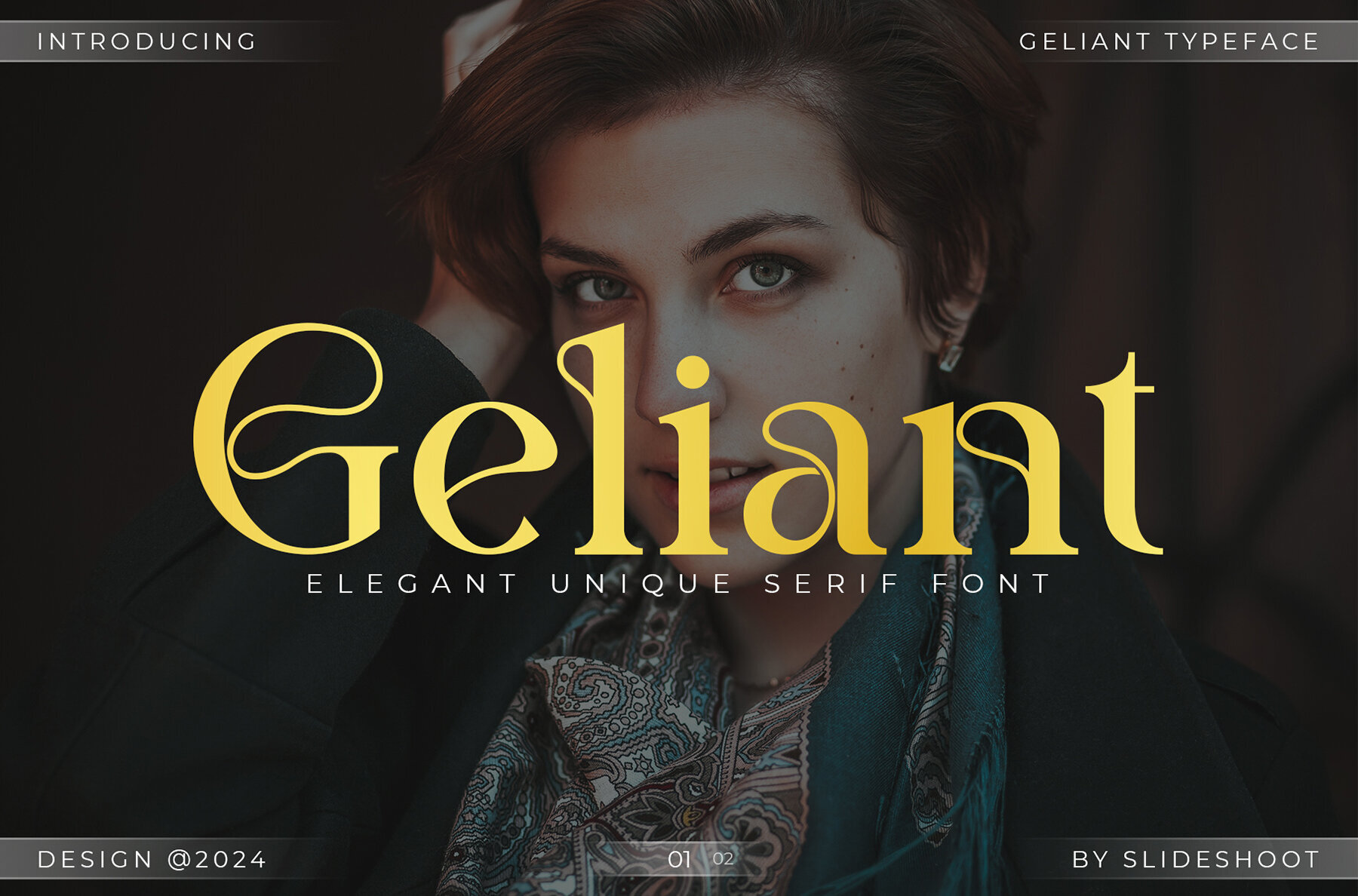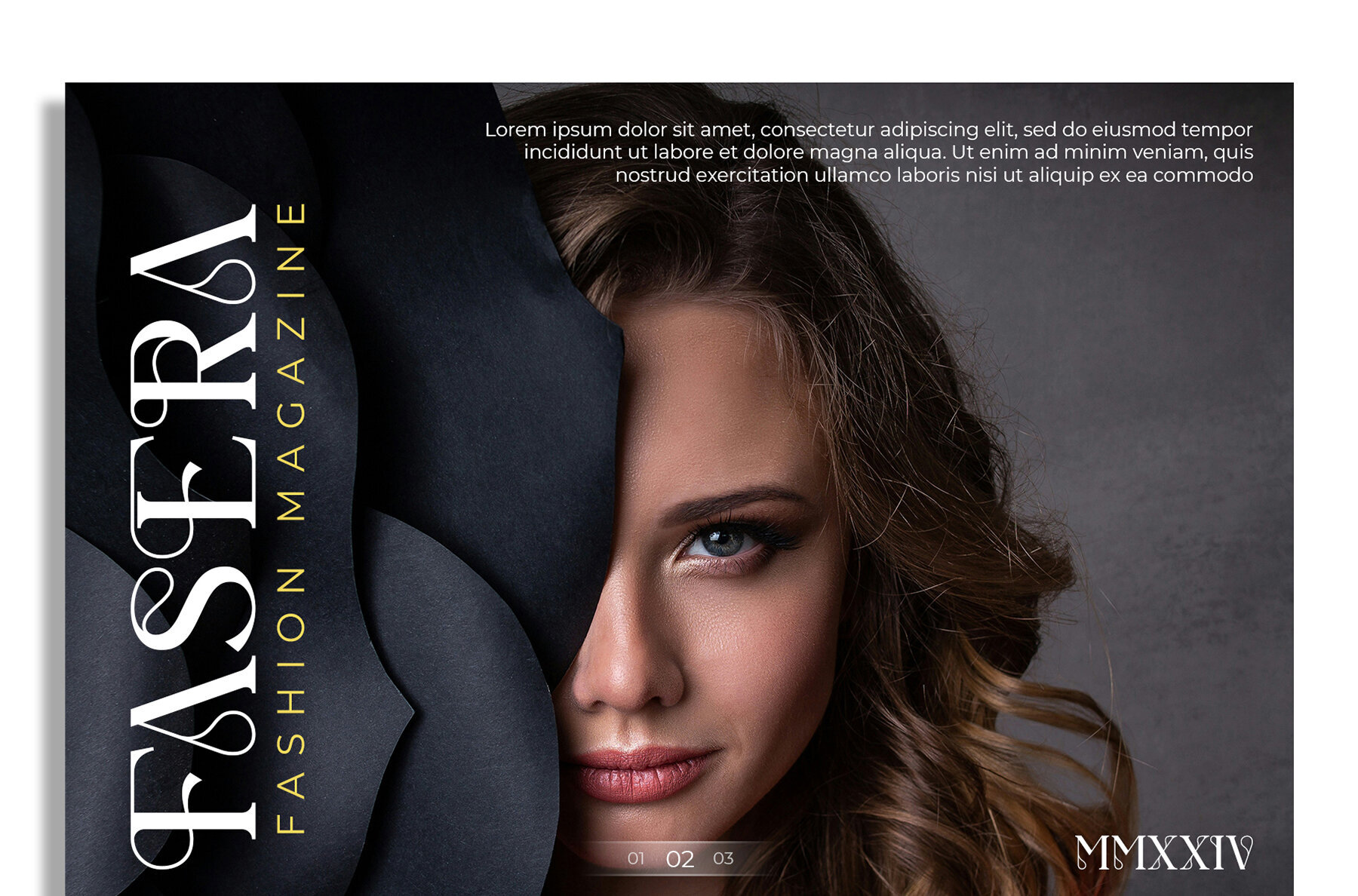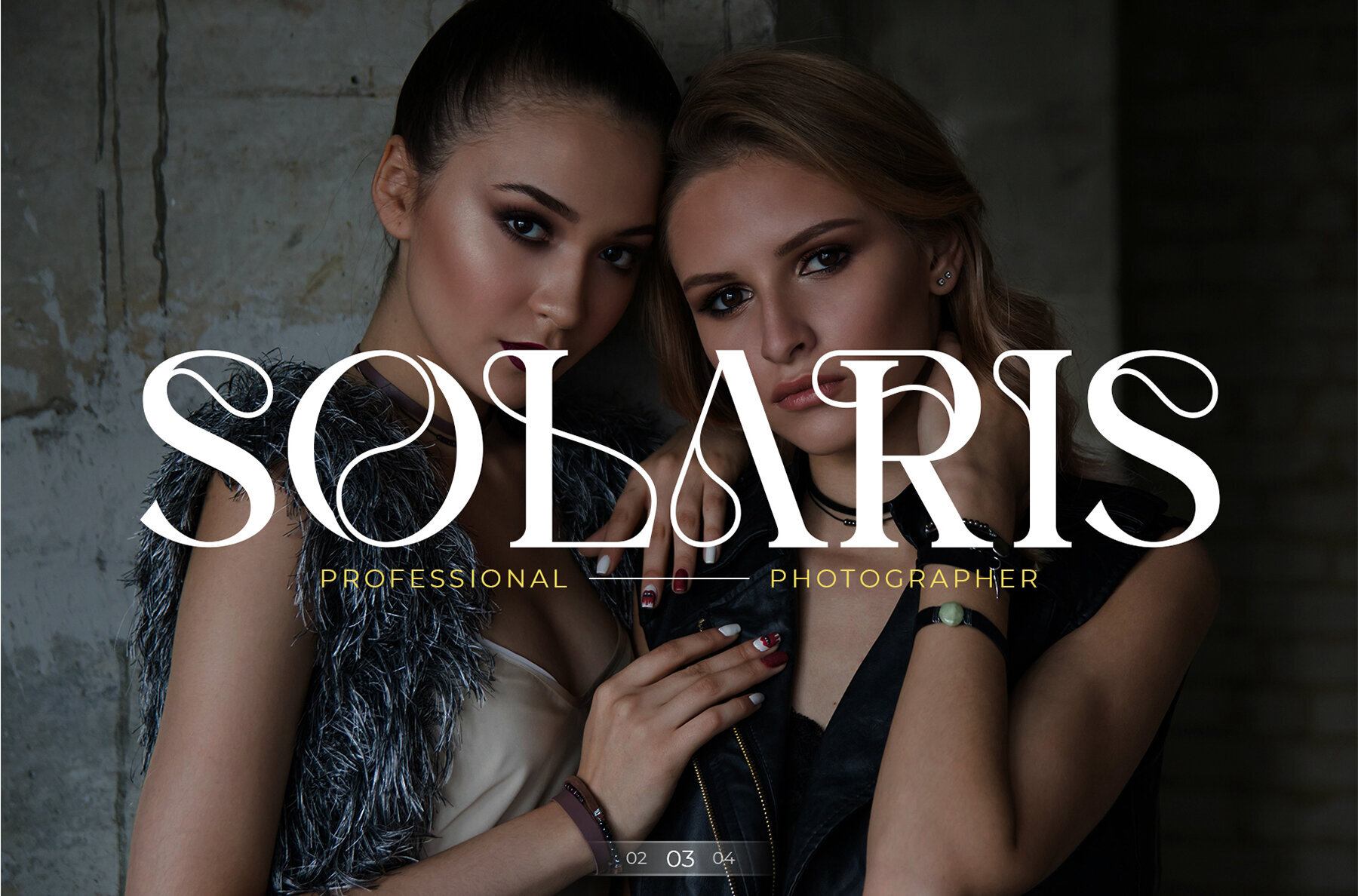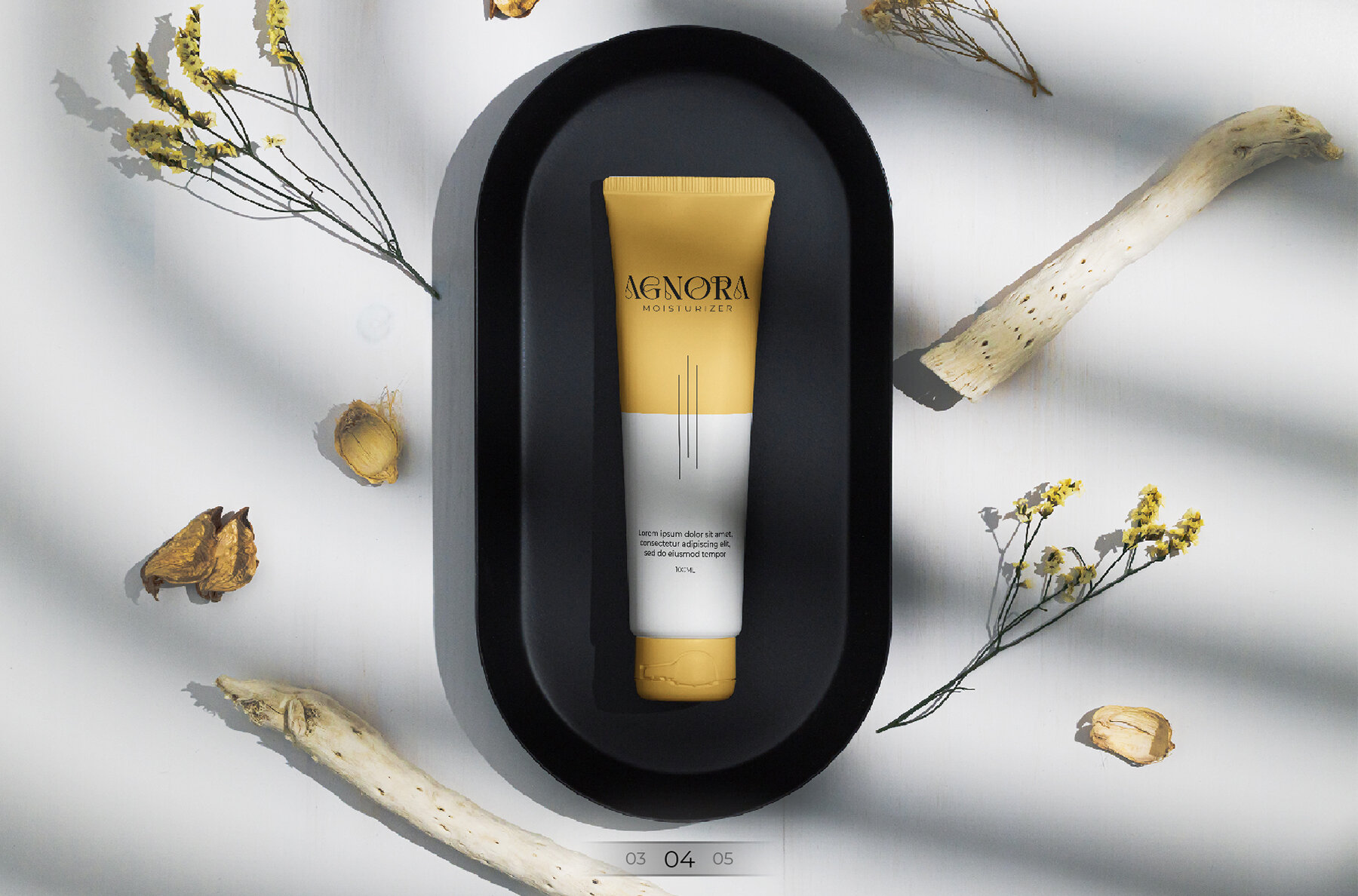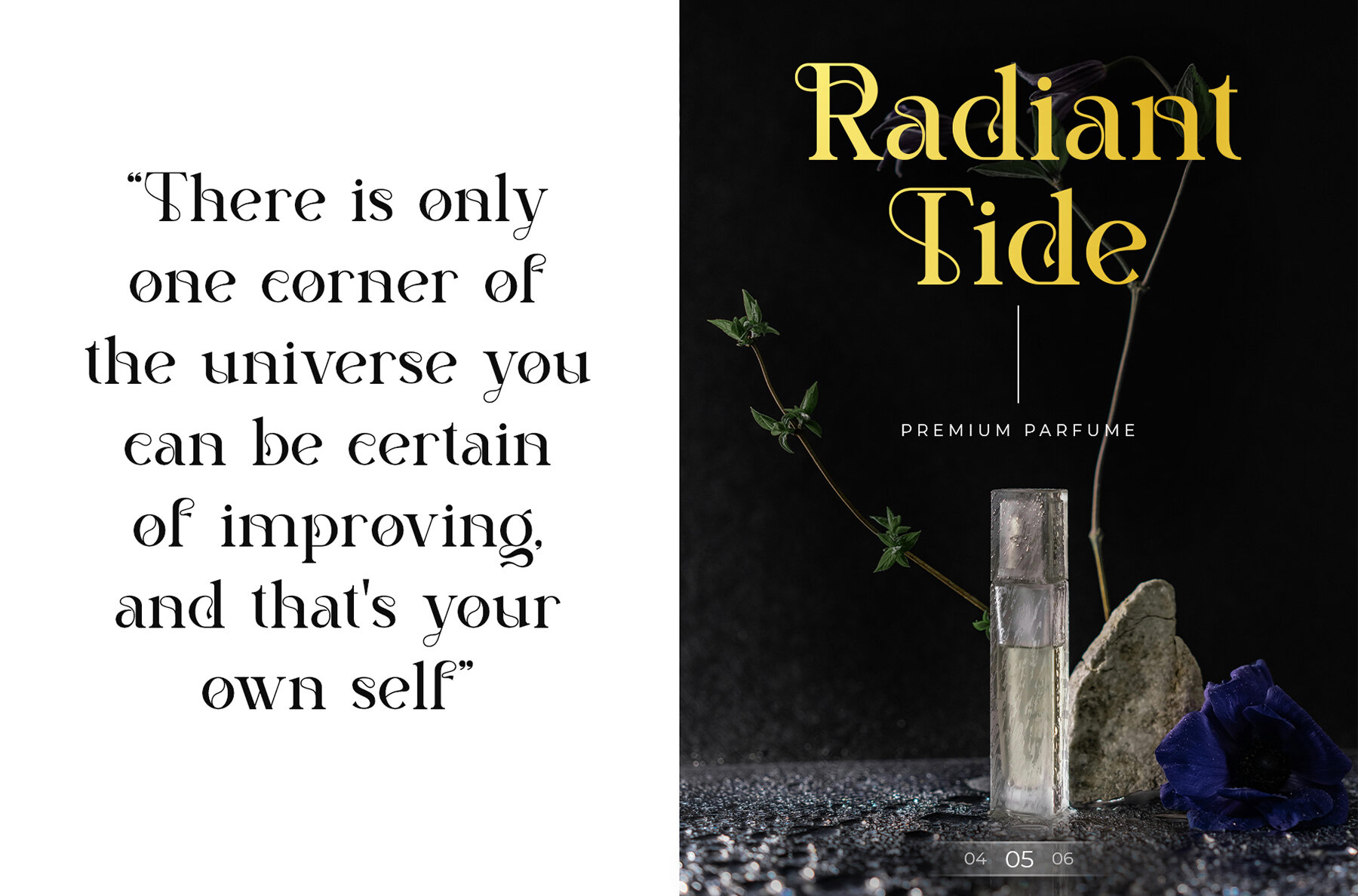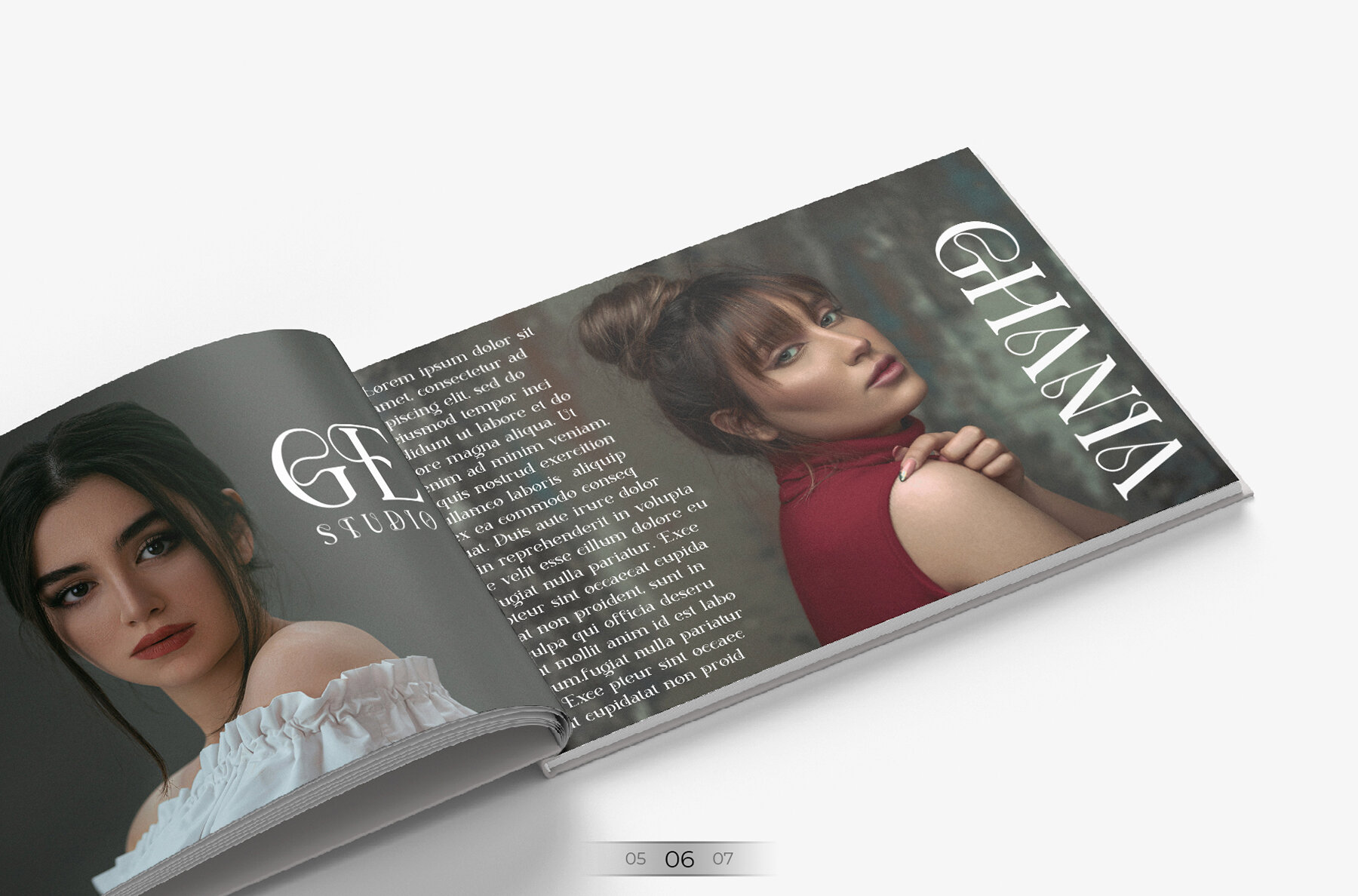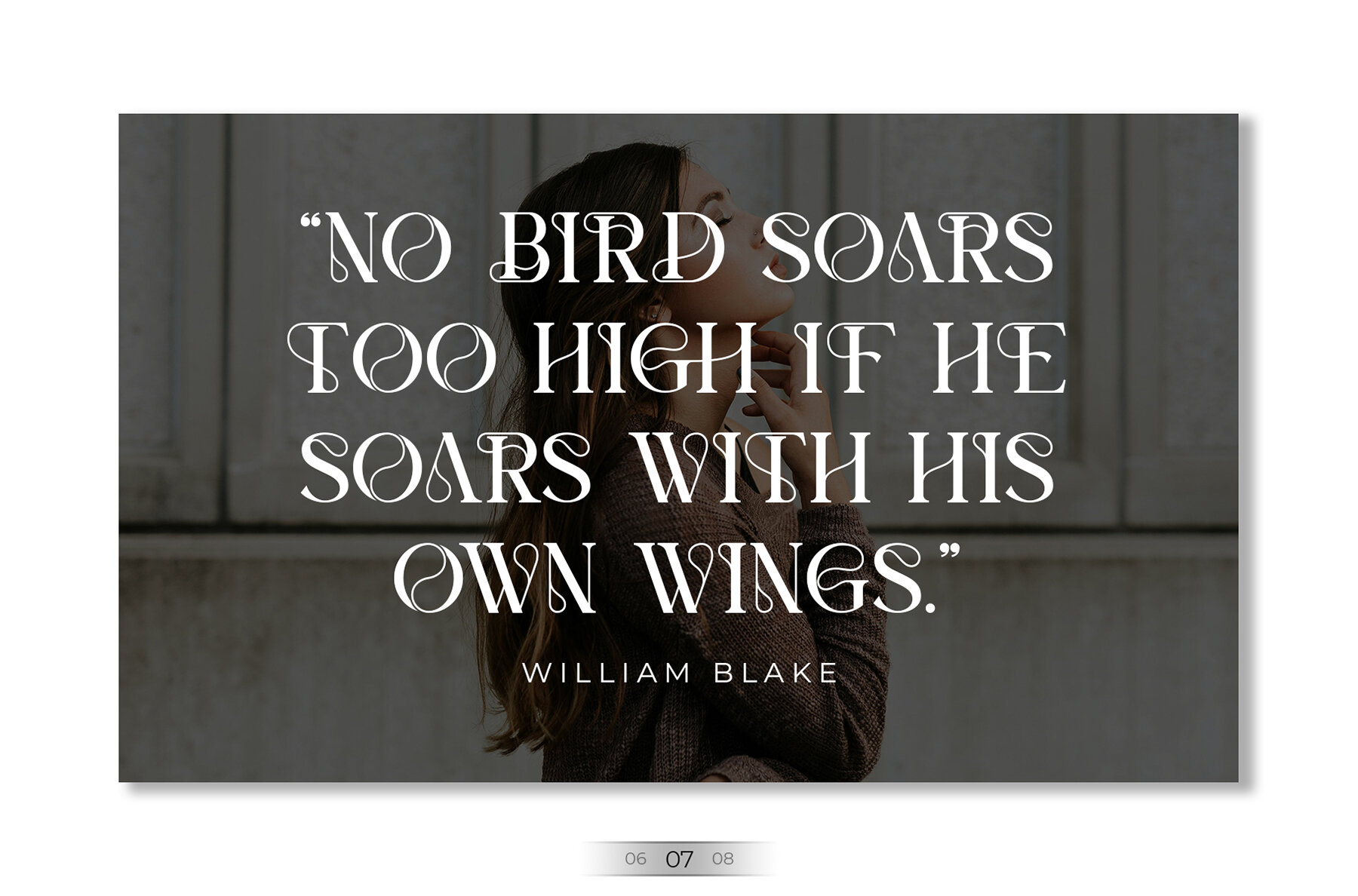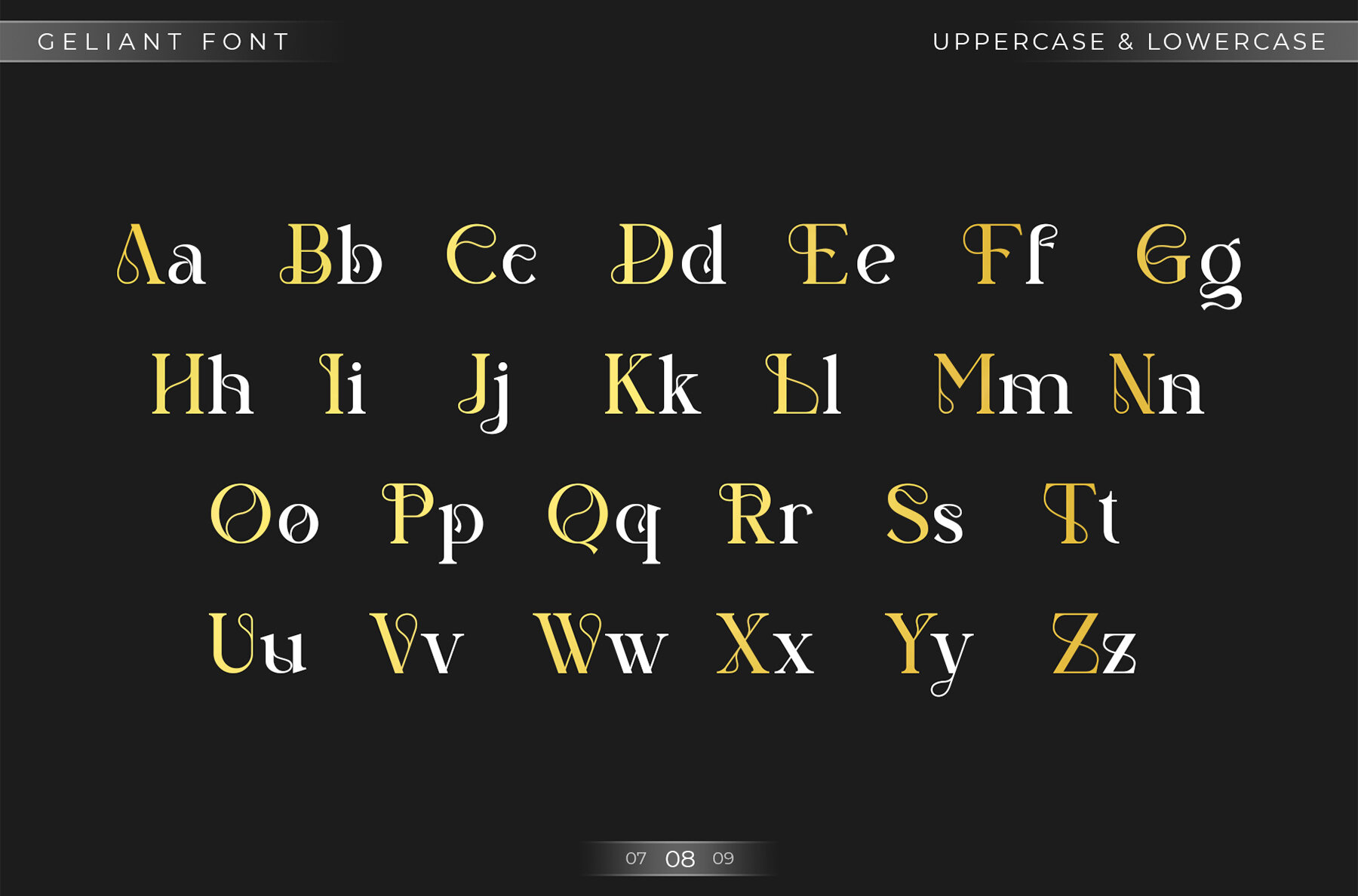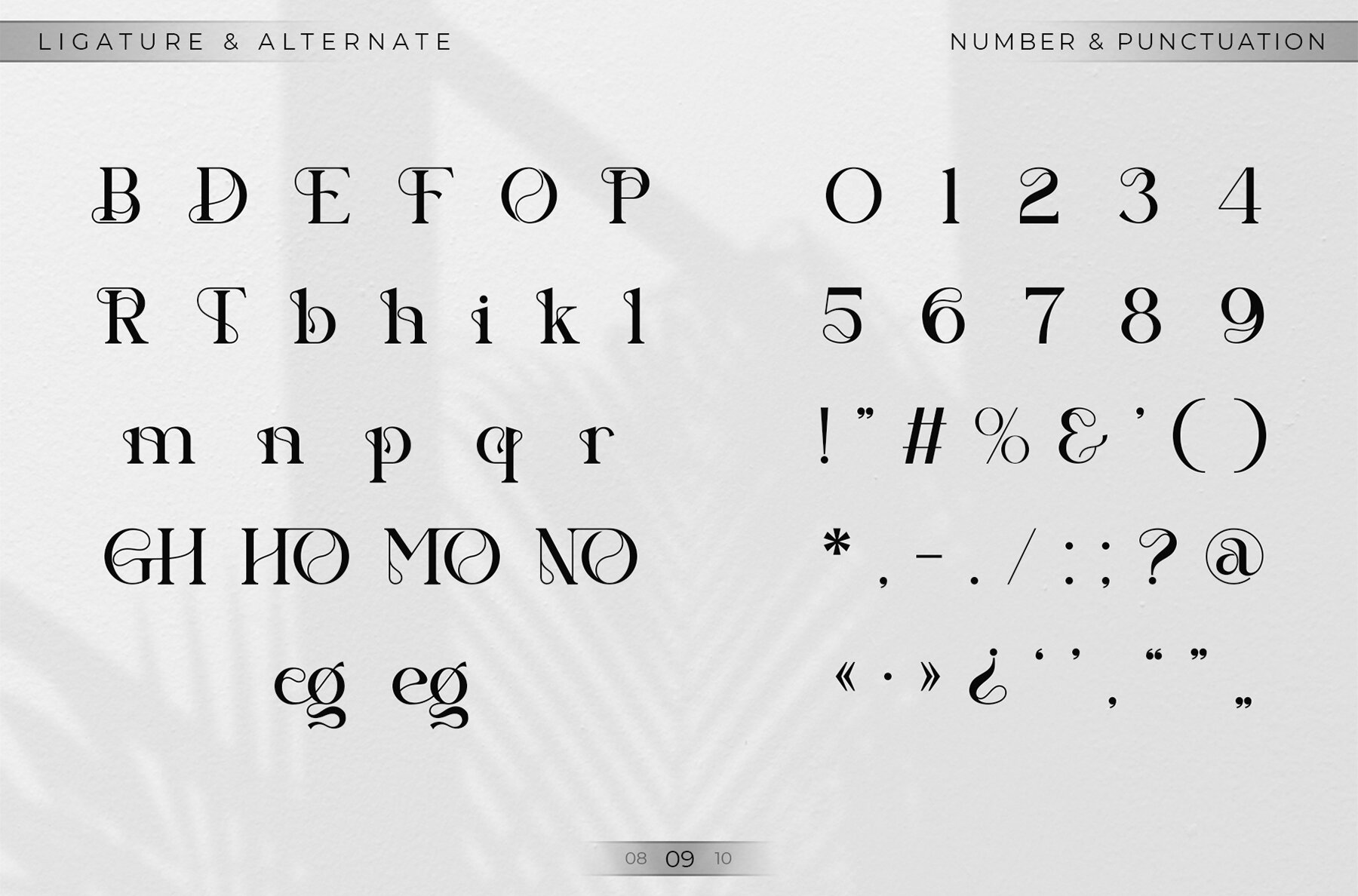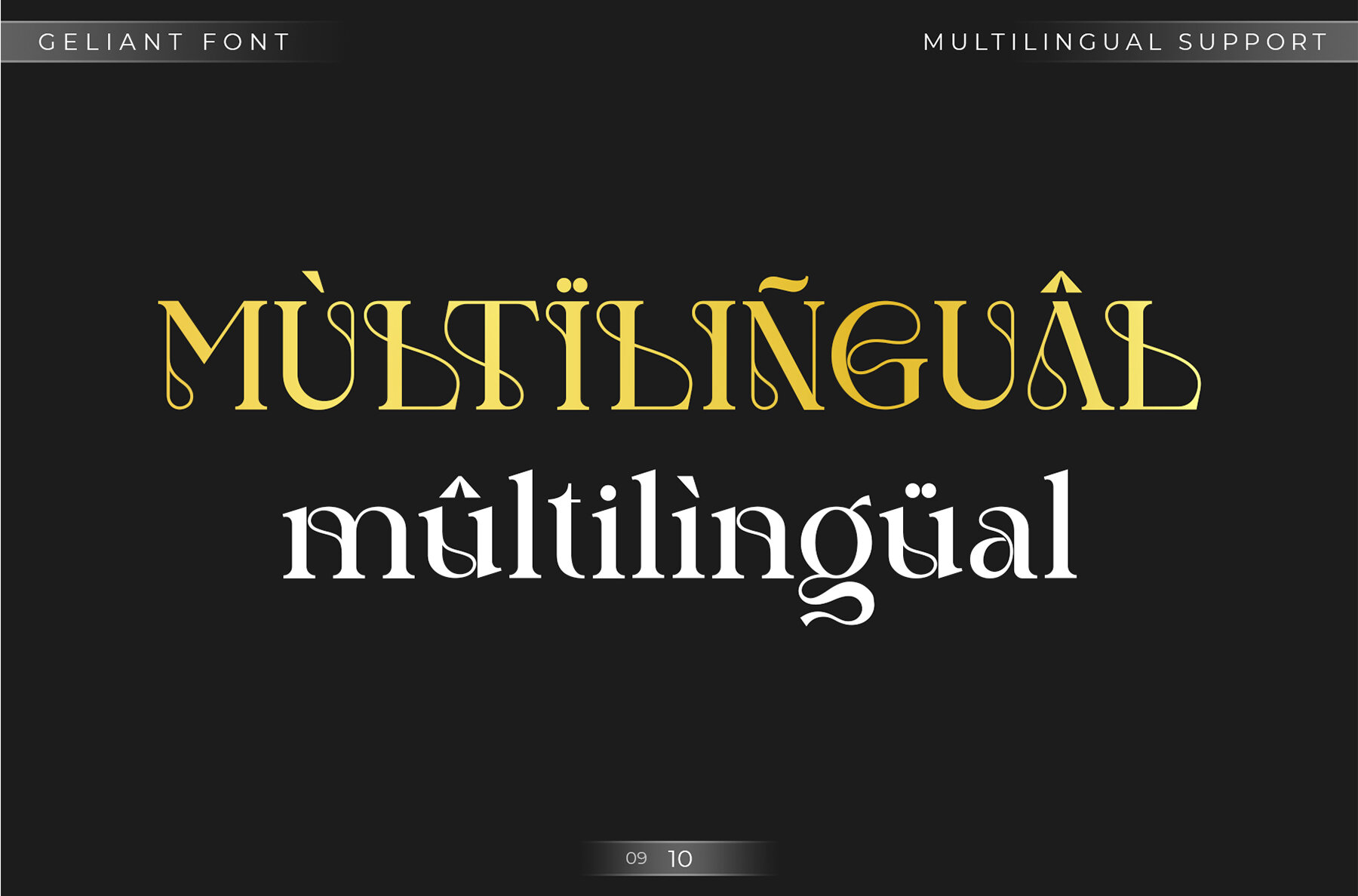
Geliant Font
Geliant
Geliant Serif is a smooth and elegant typeface designed to bring a touch of sophistication to your projects. Its balanced structure and refined character make it an ideal choice for a wide range of applications, from invitation cards and company logos to movie titles and brand names. The subtle serifs and stylish alternations imbue each character with a unique flair, enhancing the overall aesthetic of your designs.
This versatile serif font features ligatures alongside both uppercase and lowercase letters, ensuring your text flows seamlessly. It also includes numbers and punctuation, making it a comprehensive option for various design software, including Adobe Illustrator, Photoshop, and InDesign, as well as Microsoft Word. With its simple installation process and compatibility with both PC and Mac, Geliant Serif is the perfect tool for creating sophisticated, stylish designs across multiple platforms.